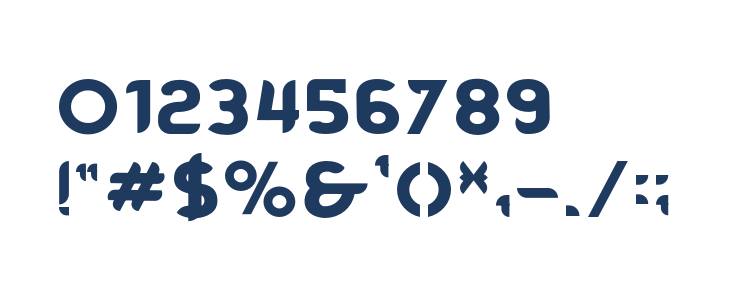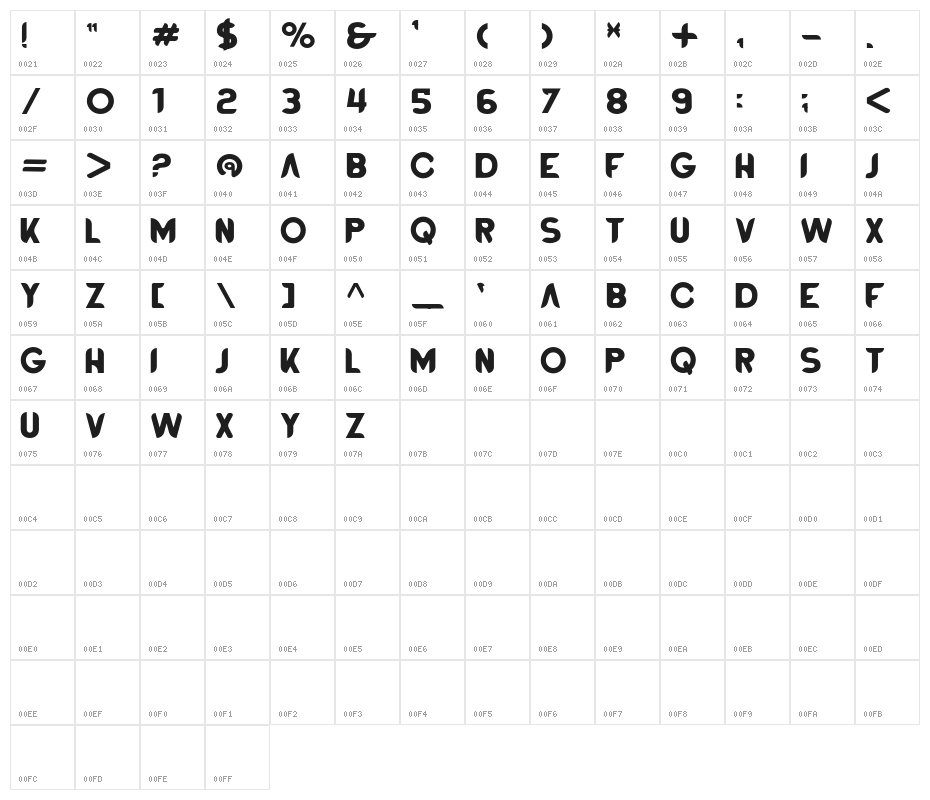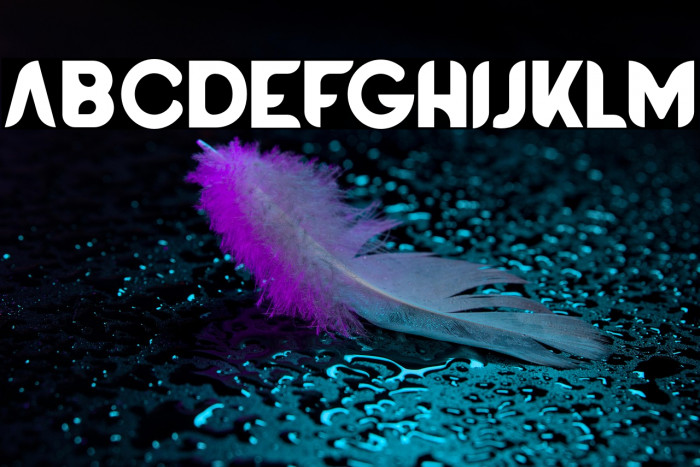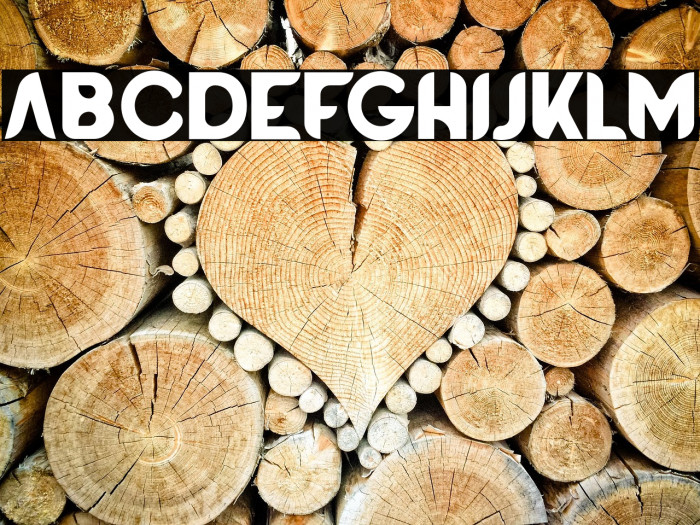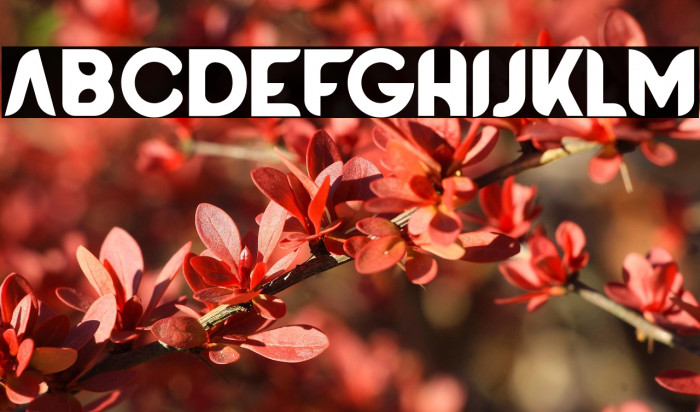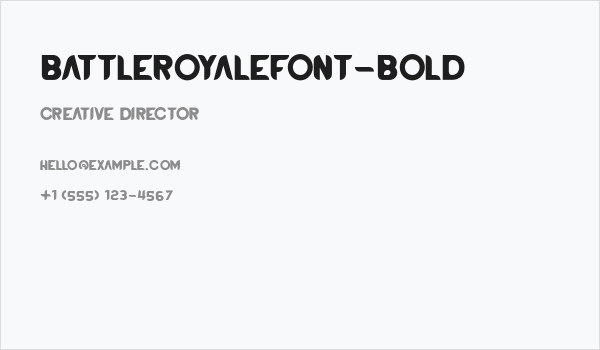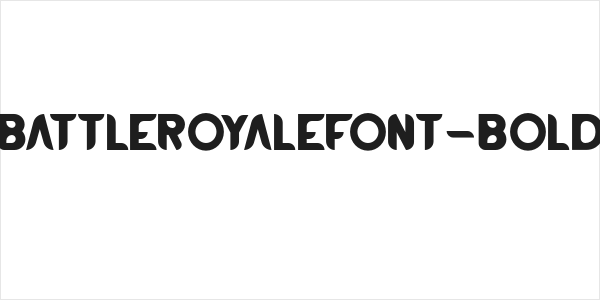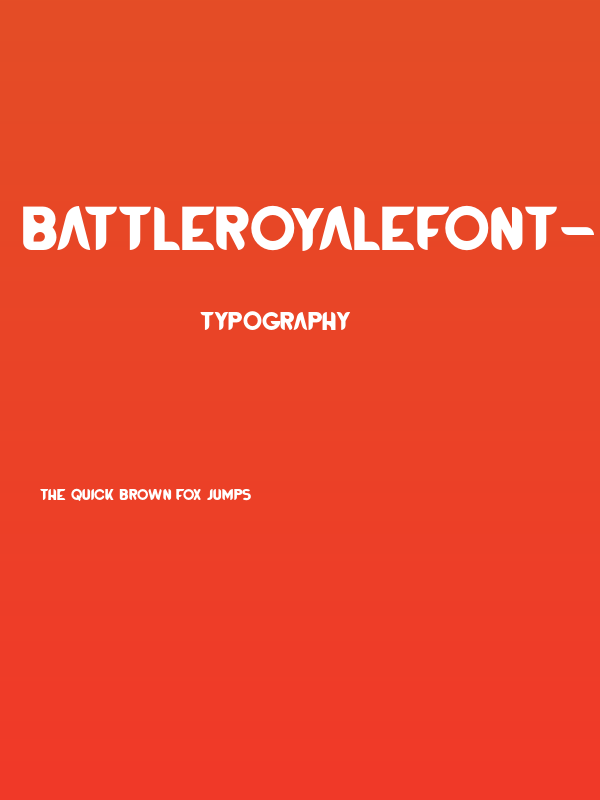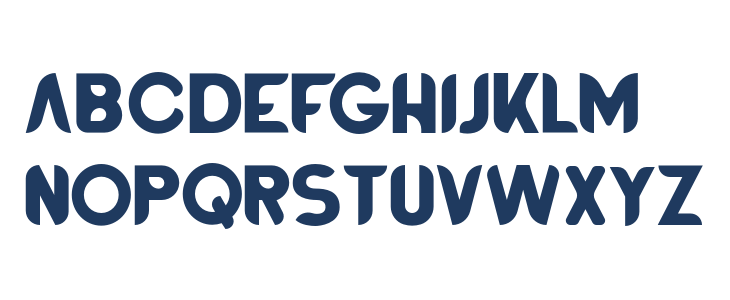
BATTLEROYALEFONT-Bold Font
BATTLEROYALEFONT-Bold Description
This font features bold, geometric letterforms with a modern and robust appearance. The characters are designed with a strong presence, making them ideal for impactful visual communication. The uppercase letters are particularly striking, with consistent stroke widths and a slightly condensed style that enhances readability while maintaining a bold aesthetic. The numerals and special characters follow the same design principles, ensuring uniformity across all glyphs. This font is well-suited for projects that require a commanding and assertive typeface, such as branding, posters, and headlines.